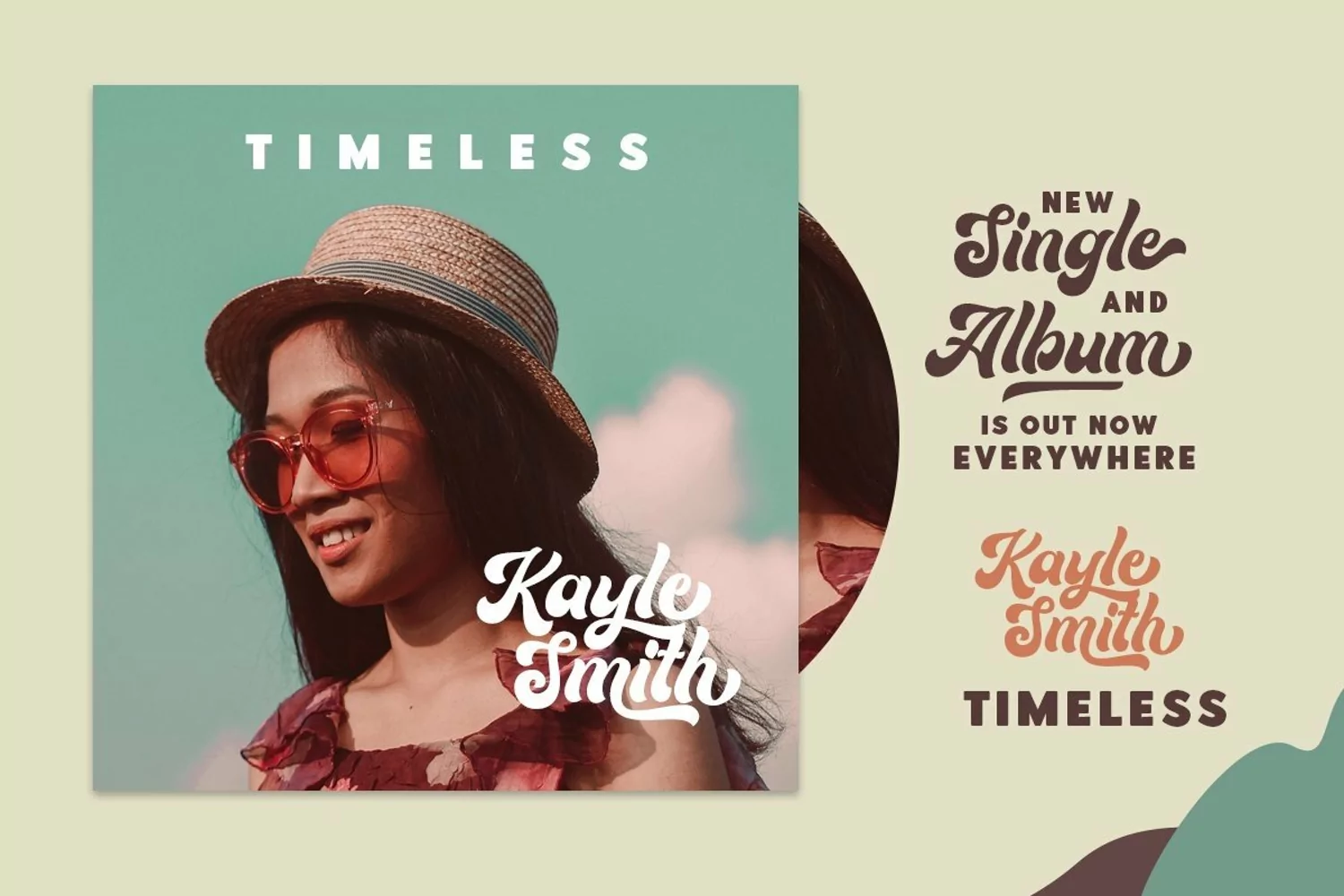
Routhers Retro is a retro bold font that contain Uppercase, Lowercase, Numerals, Accents, Punctuation, 4 set alternates, Ligatures, Swash, and also Underline. You can use to make a logo for branding, best for apparel design, and quotes. This font also already PUA Encoded.